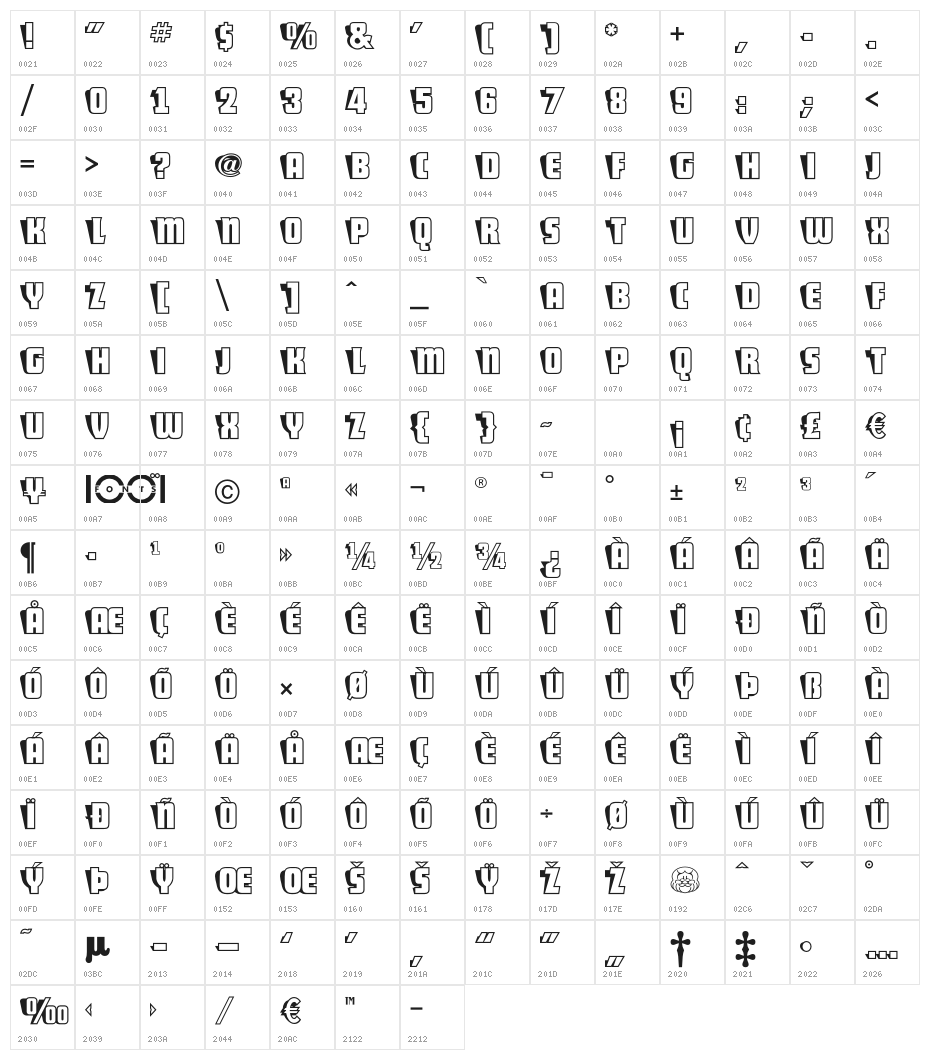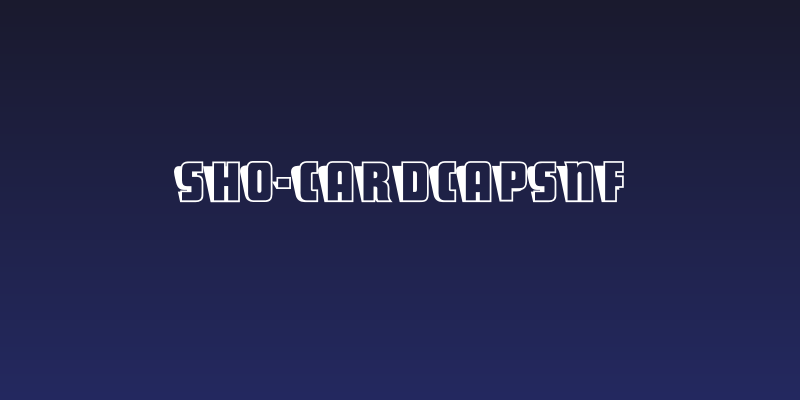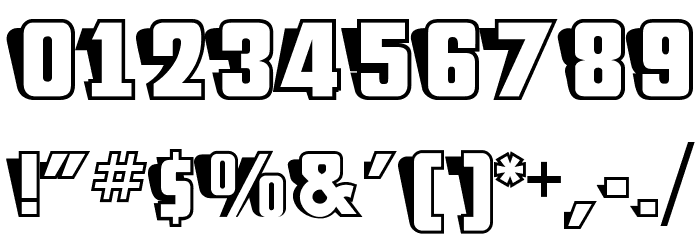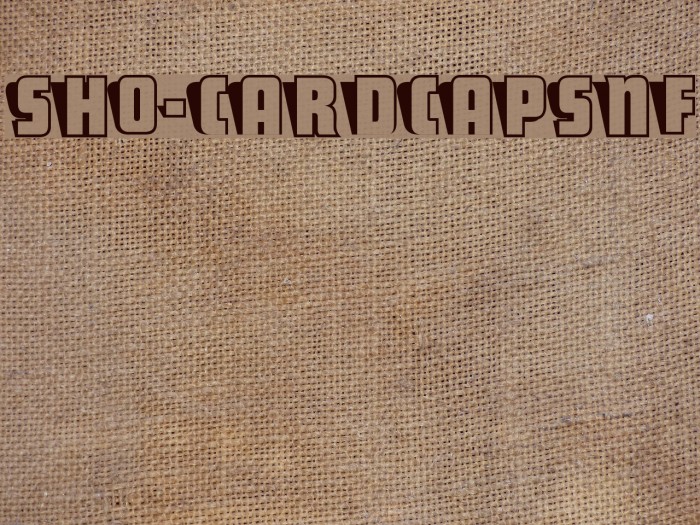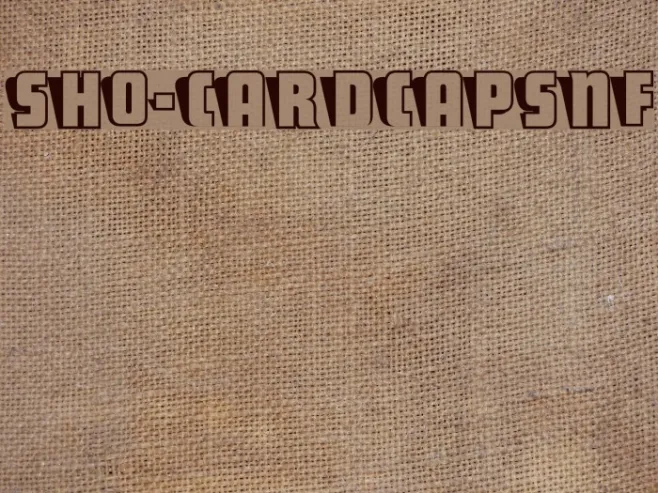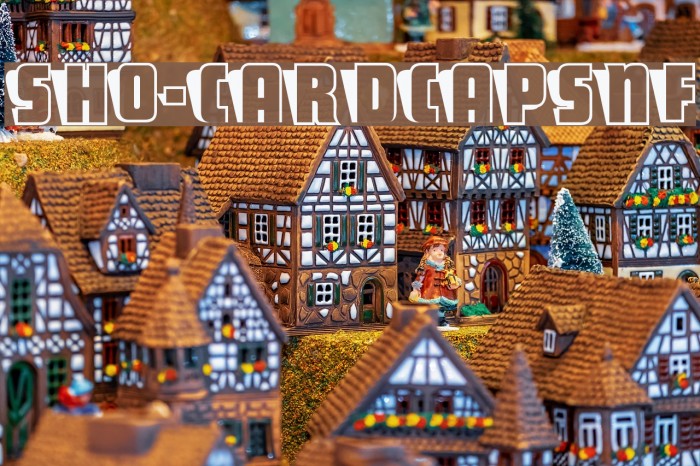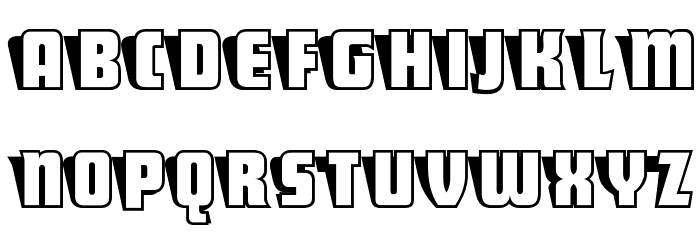
Sho-CardCapsNF Font
Sho-CardCapsNF Description
This font features a bold, three-dimensional style with a shadow effect that gives it a striking, standout appearance. The characters are uppercase and lowercase with a consistent, blocky structure that conveys strength and stability. The numbers and special characters maintain the same boldness and shadowed style, ensuring uniformity across all glyphs. The font's design is reminiscent of vintage signage or retro poster art, making it ideal for projects that require a touch of nostalgia or a bold statement.
| Proposed Projects | Ideal for retro-themed posters, vintage signage, branding, and any project requiring a bold, eye-catching typeface. |